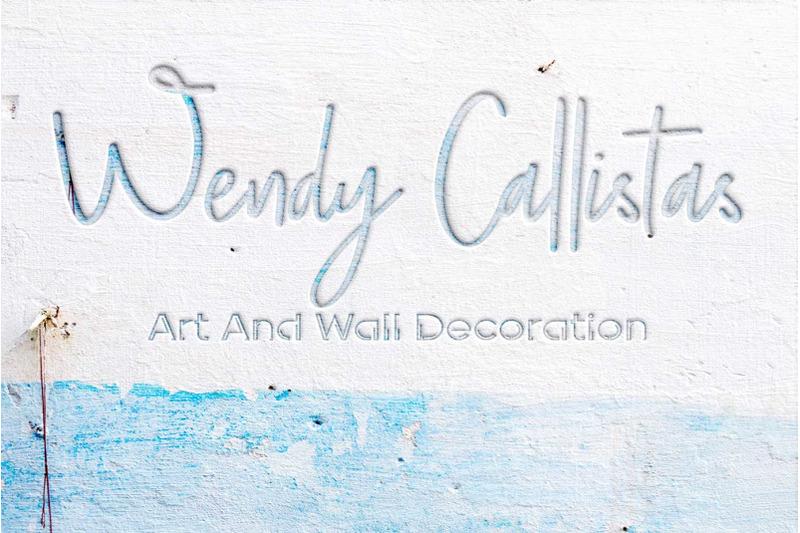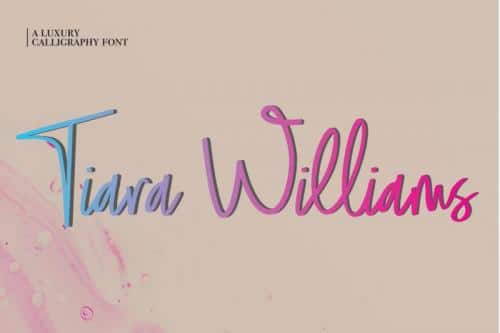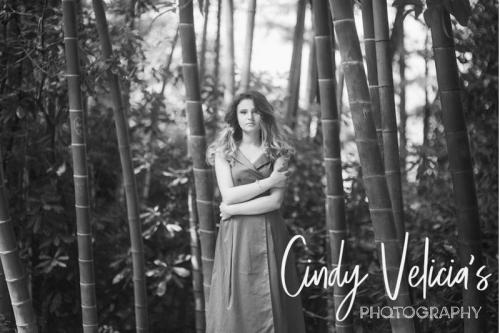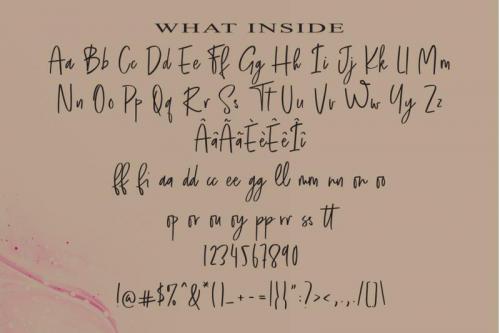
Tiara Williams is a script font with relaxed style and carries the impression of luxury. Great for adding joyfulness to a variety of design projects!
Perfect for branding & logo projects, also suitable for Product Packaging, Title on your article or book cover, Stationary, and many more.
- Designer: Lemon Studio